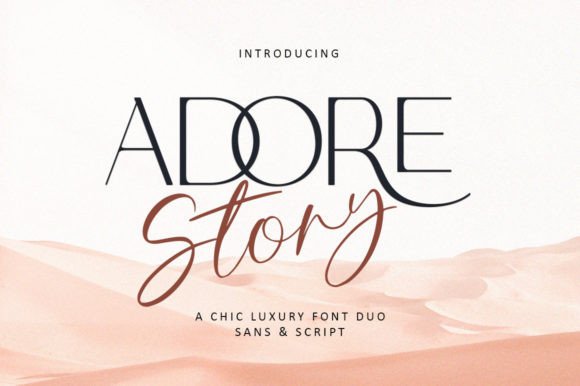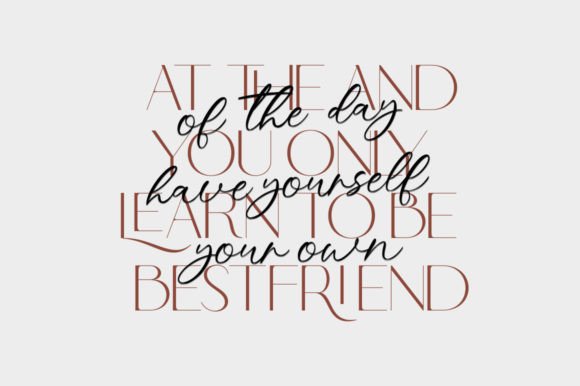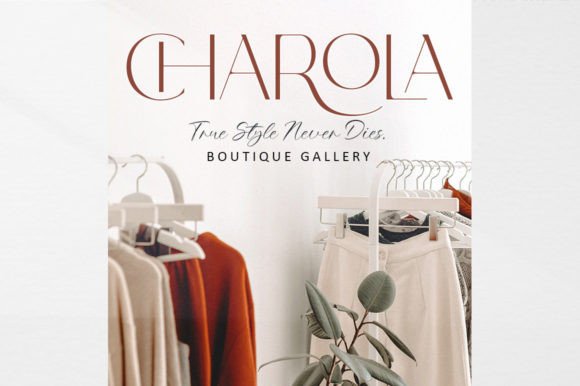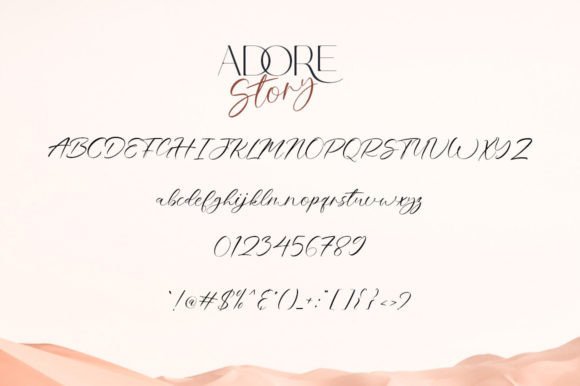
Adore Story is an exquisite font combination that combines a chic sans-serif and elegant script for a sophisticated and modern look. Whether you’re designing logos, packaging, or social media graphics, this font duo is perfect for adding a touch of luxury and refinement to your projects.
Adore Story Font